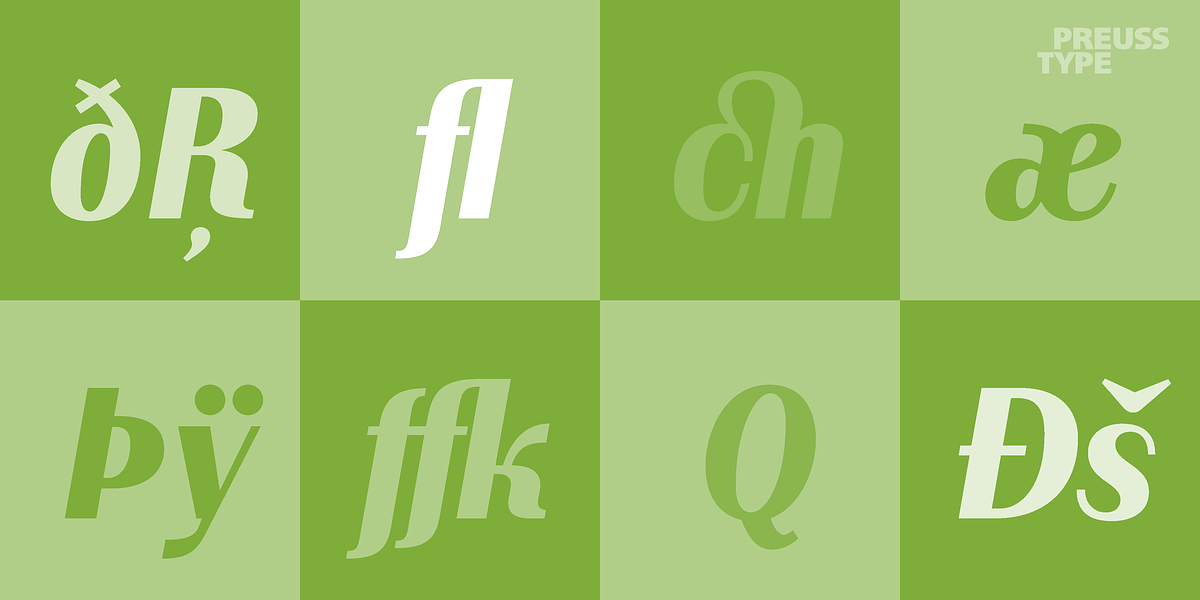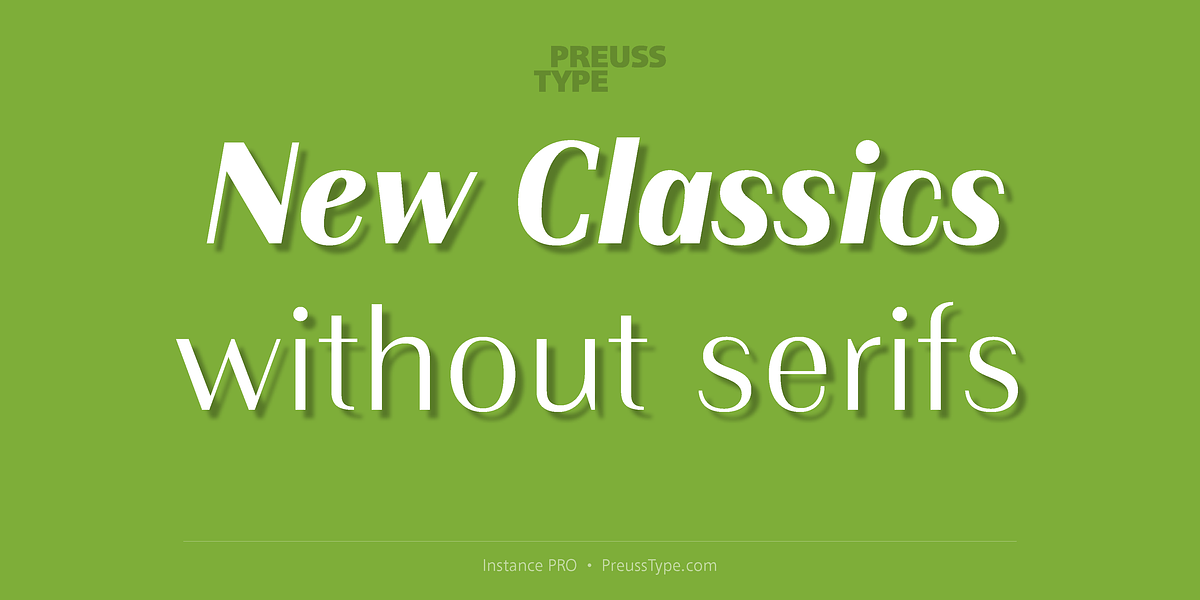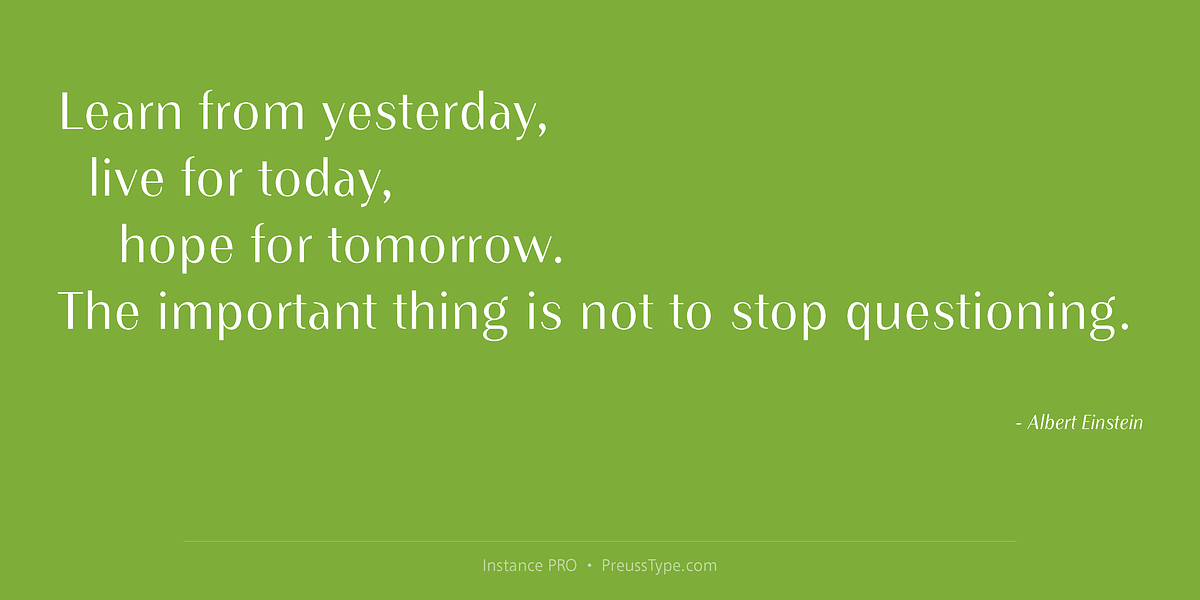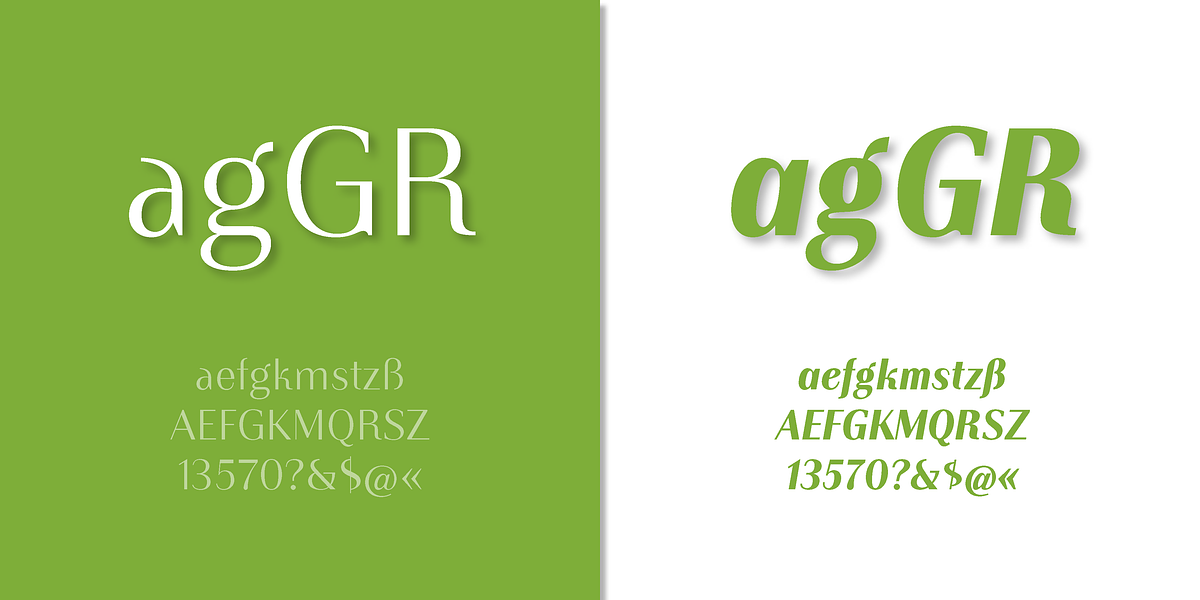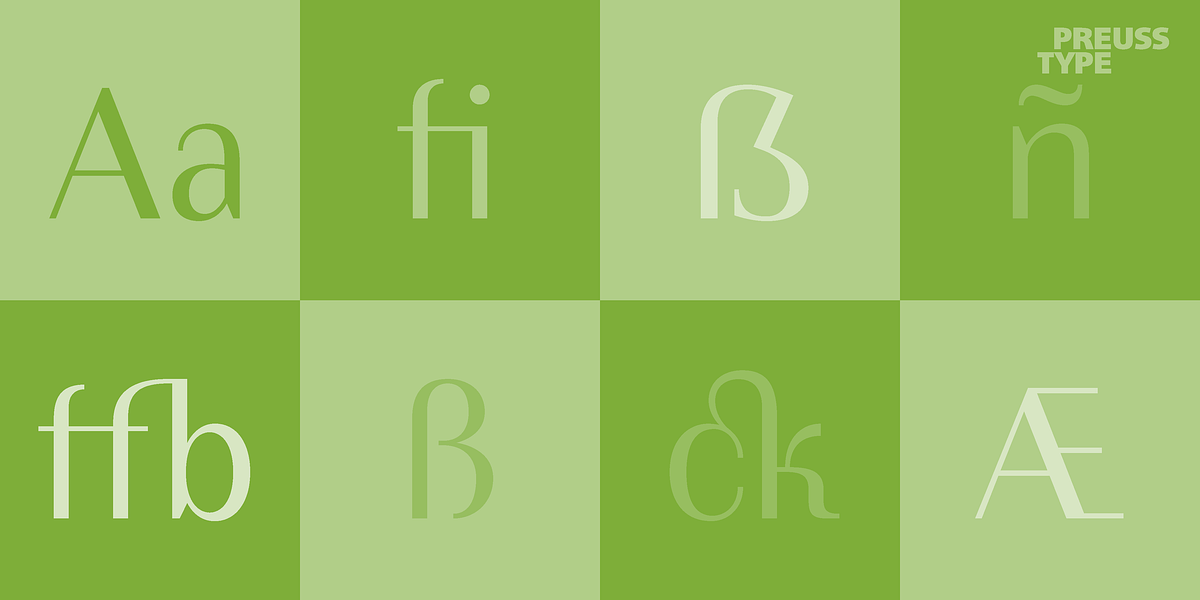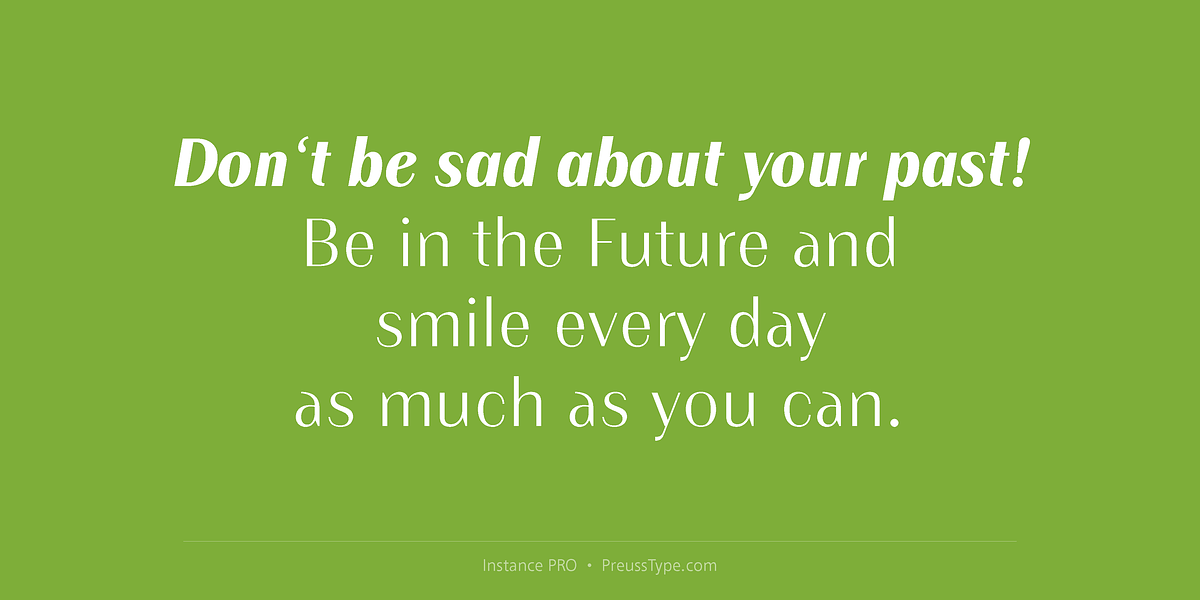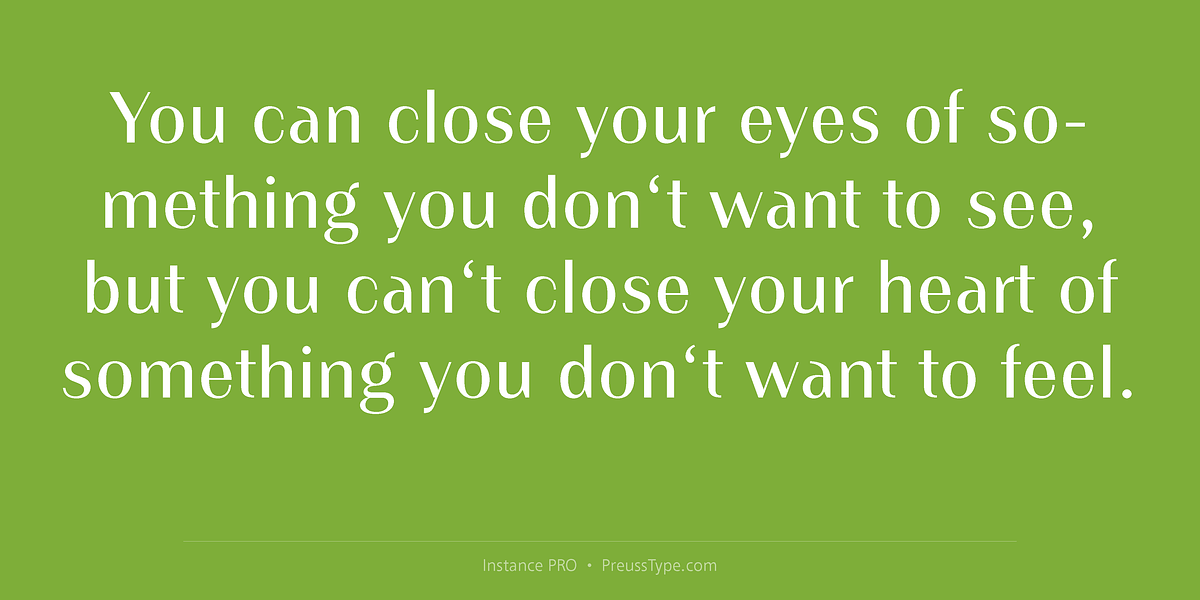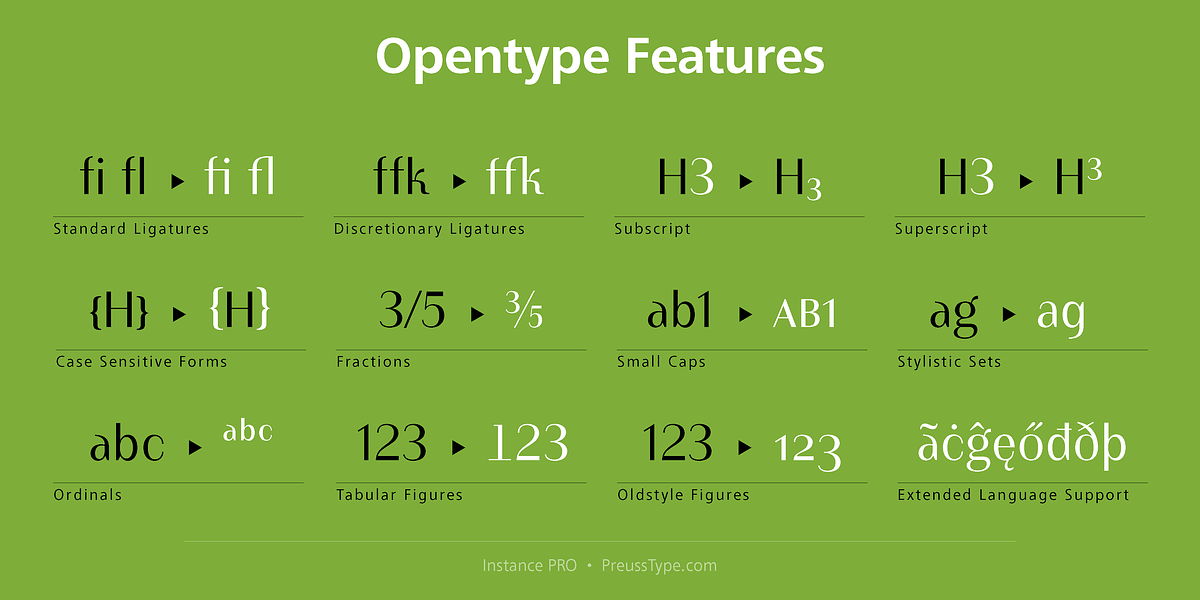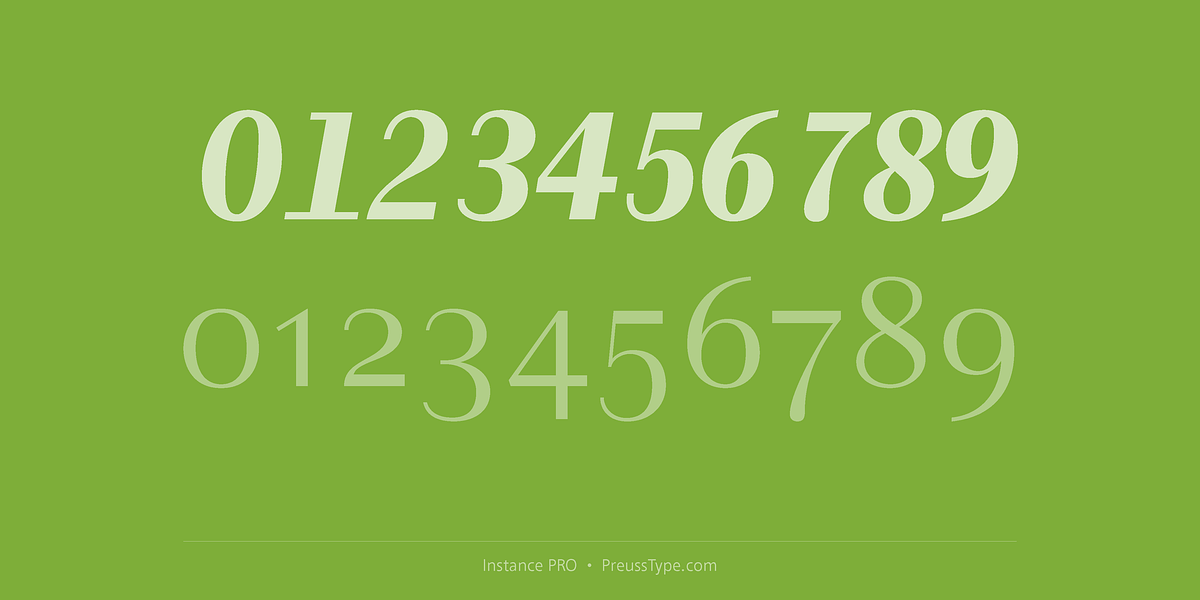
Instance PRO
Instance is a neo-grotesque sans serif font that balances contemporary design with classic proportions. It maintains the traditional x-heights and capital structures while introducing modern adjustments to letterform widths. The typeface family includes a Light weight and offers high contrast for impactful readability in both headlines and body text.